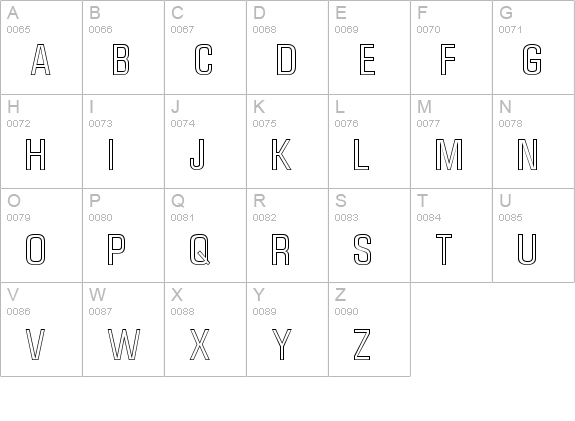
MicroTechnicCondOutline Font Details
MicroTechnicCondOutline font is a sleek and modern typeface designed for tech-related projects and futuristic designs. With its condensed style and sharp outlines, this font exudes a sense of precision and innovation. The clean lines and geometric shapes make it perfect for creating a professional and high-tech look. This versatile font is suitable for a wide range of design applications, from branding and advertising to web design and product packaging. Whether you're working on a corporate presentation or a cutting-edge tech startup, MicroTechnicCondOutline font will add a touch of sophistication to your project. Best of all, MicroTechnicCondOutline font is available for free download at FontsMarket.com. So go ahead and elevate your designs with this stylish and contemporary typeface today!